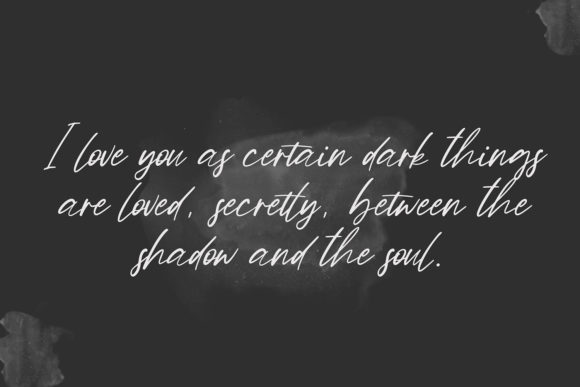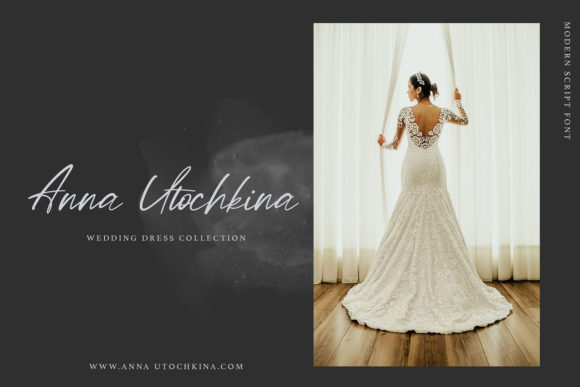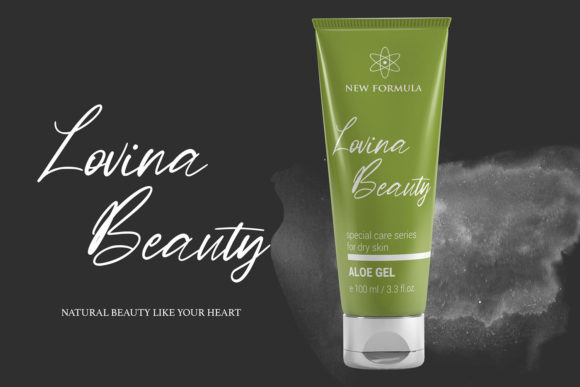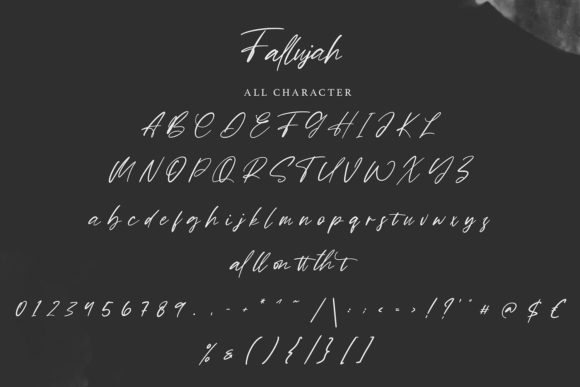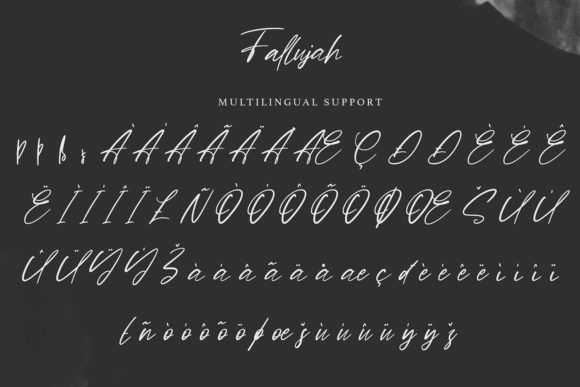
Introducing Fallujah Font: The Elegant and Timeless Choice for Your Design Projects
Are you tired of using the same old fonts for your design projects? Look no further than the Fallujah Font, a beautiful and elegant handwritten font that is sure to capture your heart. With its incredibly distinct and timeless style, Fallujah Font is the perfect choice for designers and crafters looking to add a touch of sophistication to their work.
What is Fallujah Font?
Fallujah Font is a flowing handwritten font that is described by an elegant touch, making it perfect for a wide range of projects. Whether you’re working on a logo, a poster, a website, or any other design project, Fallujah Font is sure to impress. Its unique and distinctive style sets it apart from other fonts, making it a standout choice for anyone looking to create spectacular designs.
Key Features of Fallujah Font
- Elegant and Sophisticated: Fallujah Font has an incredibly elegant and sophisticated style that is sure to add a touch of class to any design project.
- Handwritten: With its flowing handwritten style, Fallujah Font has a personal and unique touch that sets it apart from other fonts.
- Distinct and Timeless: Fallujah Font has a distinct and timeless style that is sure to stand the test of time, making it a great investment for designers and crafters.
- Versatile: Fallujah Font is perfect for a wide range of projects, from logos and posters to websites and more.
Why Choose Fallujah Font?
So why choose Fallujah Font for your design projects? Here are just a few reasons:
- Add a Touch of Elegance: With Fallujah Font, you can add a touch of elegance and sophistication to any design project.
- Stand Out from the Crowd: Fallujah Font is a unique and distinctive font that is sure to help your design projects stand out from the crowd.
- Easy to Read: Despite its elegant and flowing style, Fallujah Font is easy to read, making it perfect for use in a wide range of projects.
- Great Value: With its timeless style and versatility, Fallujah Font is a great investment for designers and crafters.
How to Use Fallujah Font
Using Fallujah Font is easy. Here are a few tips to get you started:
- Pair it with Other Fonts: Fallujah Font pairs well with other fonts, making it easy to create stunning contrast and visual interest in your designs.
- Experiment with Sizes: Fallujah Font looks great in a wide range of sizes, from large headings to smaller body text.
- Use it for Headings and Titles: Fallujah Font is perfect for use in headings and titles, where its elegant and sophisticated style can really shine.
In conclusion, Fallujah Font is a beautiful and elegant handwritten font that is sure to capture your heart. With its incredibly distinct and timeless style, Fallujah Font is the perfect choice for designers and crafters looking to add a touch of sophistication to their work. Whether you’re working on a logo, a poster, a website, or any other design project, Fallujah Font is sure to impress. So why wait? Fall in love with Fallujah Font today and start creating spectacular designs!
- Keep it Simple: Fallujah Font is a elegant and sophisticated font, so keep your designs simple and clean to let it shine.